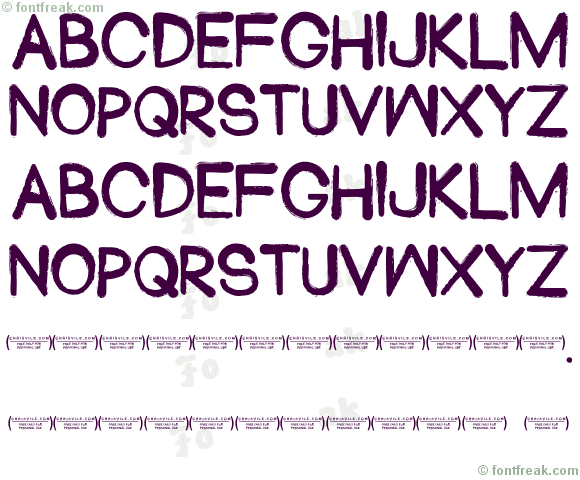
Blackhead
The Blackhead font, designed by Chris Vile in 2014, is a striking display typeface that falls under the decorative category. Its unique visual style features bold, hand-drawn letterforms with a slightly irregular stroke weight, giving it an organic feel that captures attention. The characters exhibit a playful, artistic flair, characterized by their uneven edges and varied thickness, which add depth and personality to any design. The spacing between letters is relatively tight, enhancing the font’s impactful presence while ensuring readability.
This font is particularly well-suited for a variety of creative applications. It shines in projects such as wedding invitations, where its whimsical quality can evoke a sense of joy and celebration. Additionally, Blackhead is ideal for movie posters, offering a bold statement that can easily draw in viewers. Restaurant menus can also benefit from this font, providing a fun and casual vibe that complements the dining experience. Content creators looking to engage their audience will find Blackhead a perfect choice for social media graphics, as it stands out in feeds populated with more traditional typefaces.
What sets Blackhead apart from other fonts is its distinctive hand-crafted aesthetic that combines boldness with a relaxed, informal vibe. This unique combination not only enhances visual communication but also invites the audience to engage with the content more personally. Whether used in print or digital formats, Blackhead is sure to make a memorable impression.